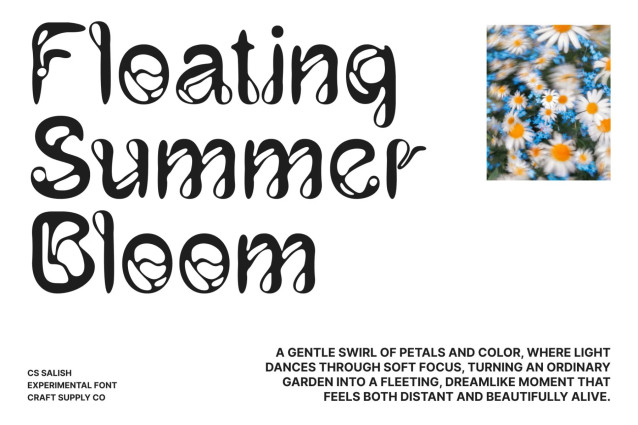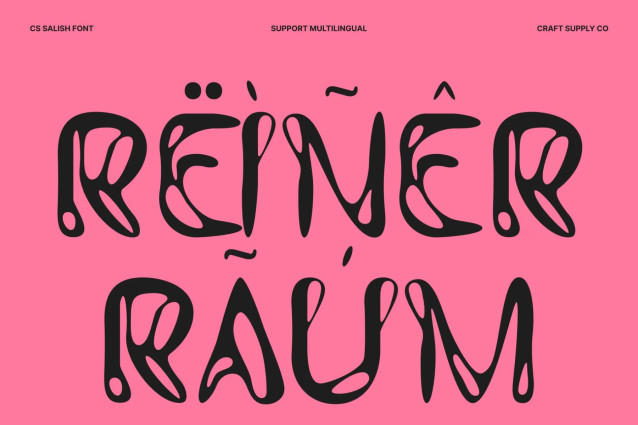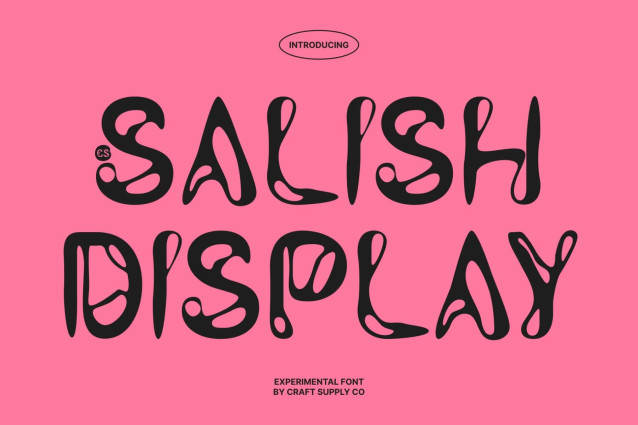
CS Salish – Experimental Font
CS Salish – Soft Melted Display Sans Serif with Artistic Flow
Display Sans Serif with Unique Soft Melted Concept
This is a display sans serif font designed with a distinctive soft melted concept that transforms typography into an expressive visual experience. Its fluid and experimental style blends smooth modern forms with dripping effects, creating a typeface that feels artistic, dynamic, and visually unforgettable. It is crafted for designers who want typography that stands out with creativity and contemporary energy.
Flowing Letterforms with Dripping Movement
The defining feature of this font lies in its flowing letterforms and soft melted details. Each character appears to move naturally with gentle dripping effects that introduce rhythm and motion into the design. This liquid-like distortion creates an organic and artistic texture, making every word feel alive and visually engaging.
Experimental Style with Soft Artistic Personality
Unlike harsh or rigid experimental fonts, this font embraces softness and fluidity to create a more approachable artistic expression. The smooth curves and melted forms give the typeface a playful yet sophisticated appearance, balancing creativity with readability. This unique character makes the font feel modern, expressive, and highly distinctive.